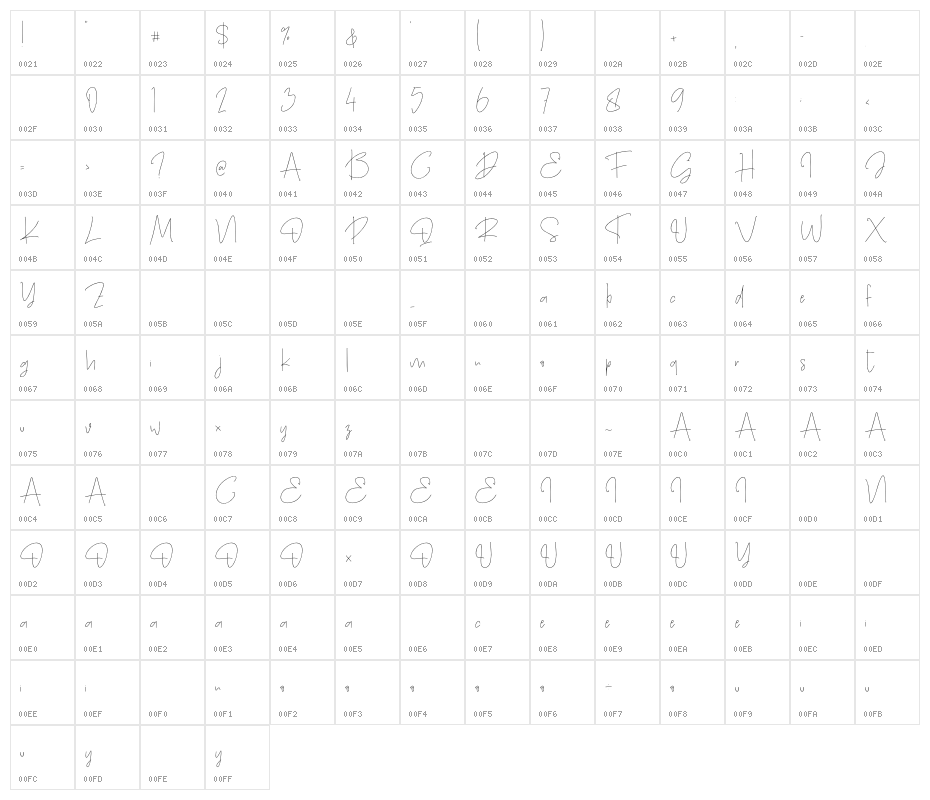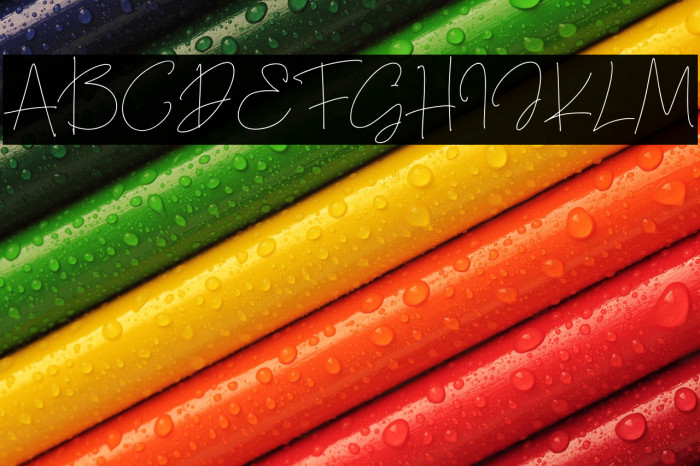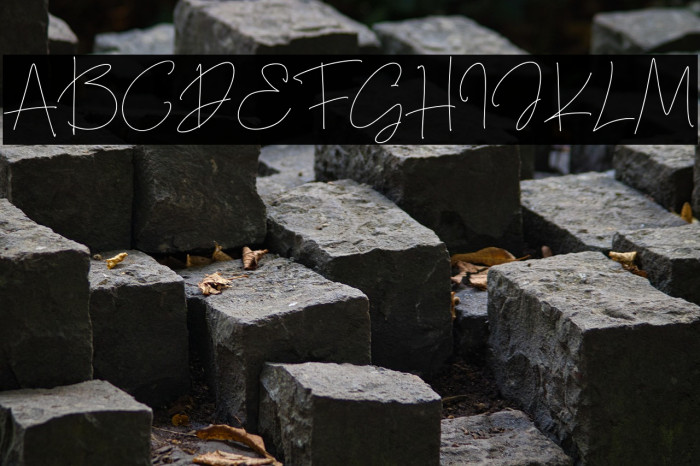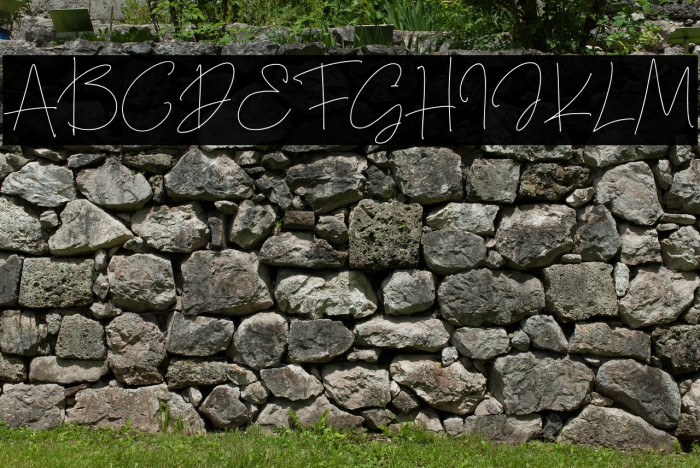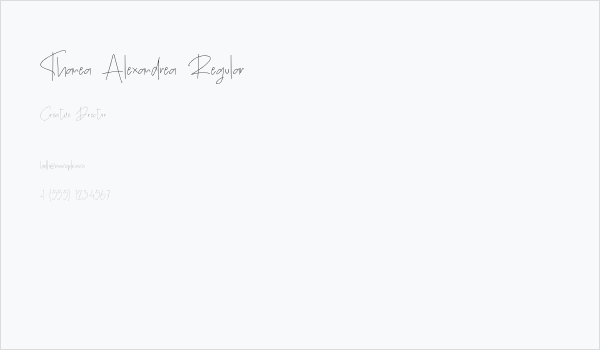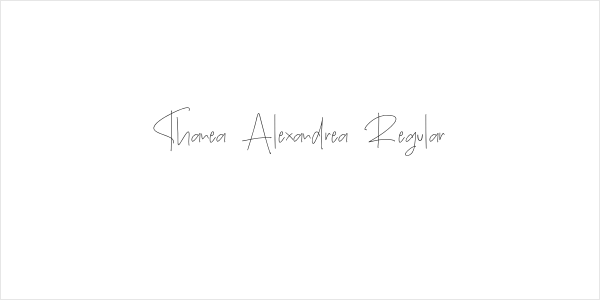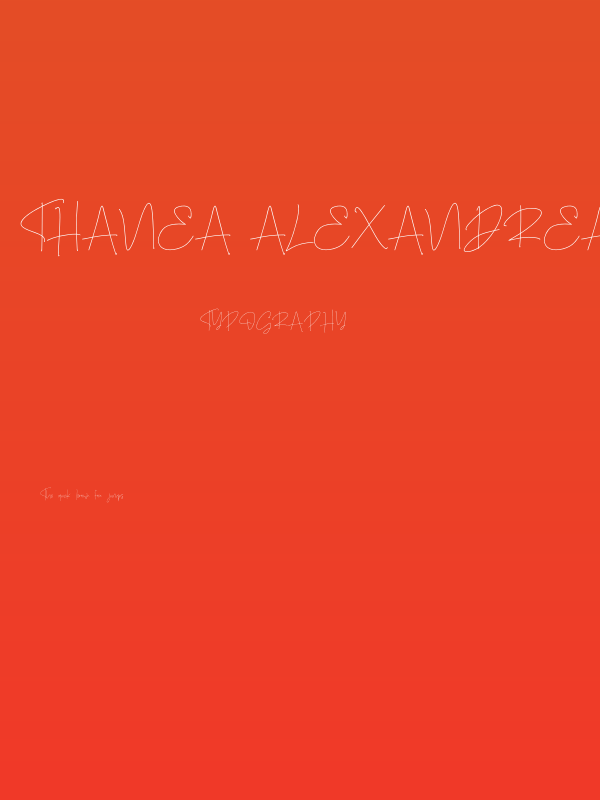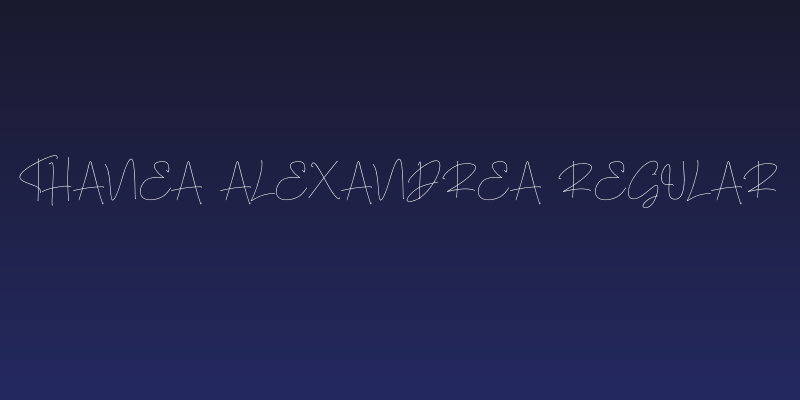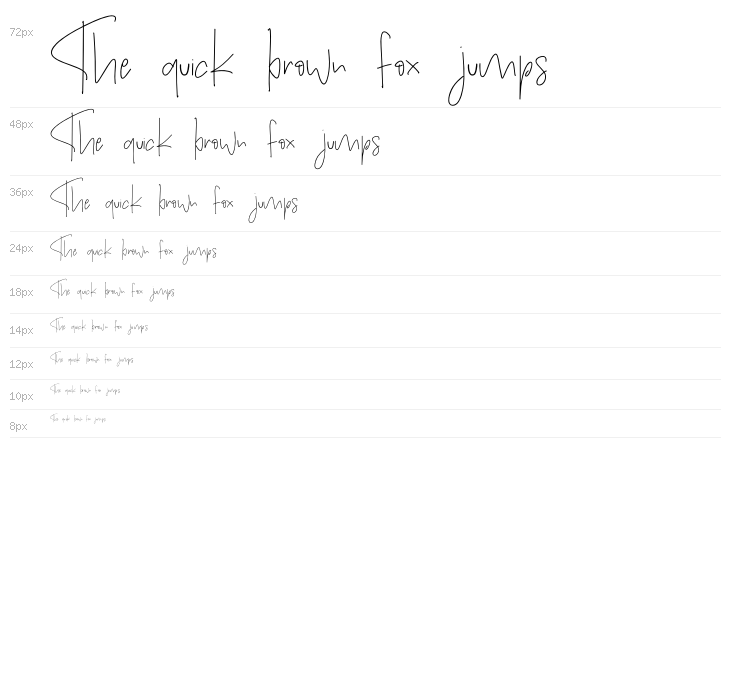
Thanea Alexandrea Regular Font
Thanea Alexandrea Regular Description
A delicate, handwritten font with a casual and flowing style, featuring thin strokes and a natural, organic appearance.
| Overall Style | Casual, Organic |
| Use Case | Invitations, Personal notes |
| Proposed Projects | Invitations, personal notes, creative projects. |